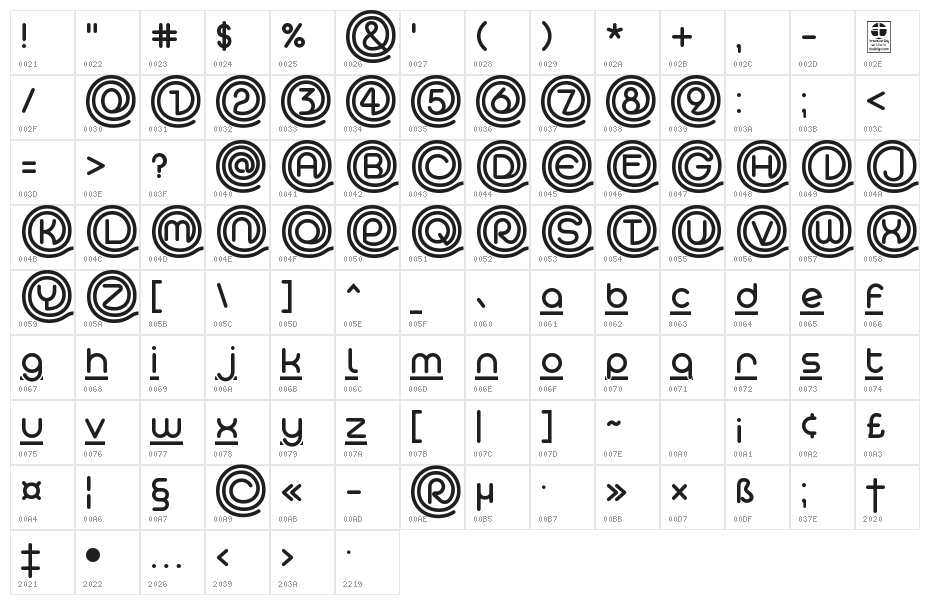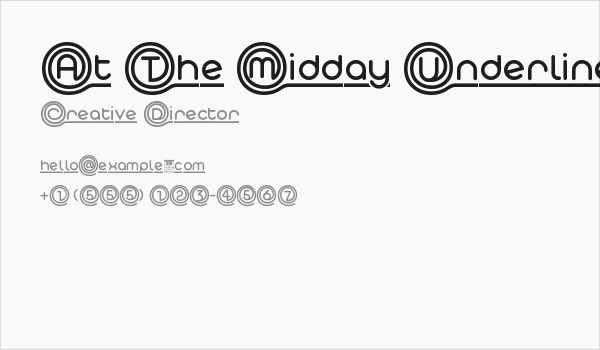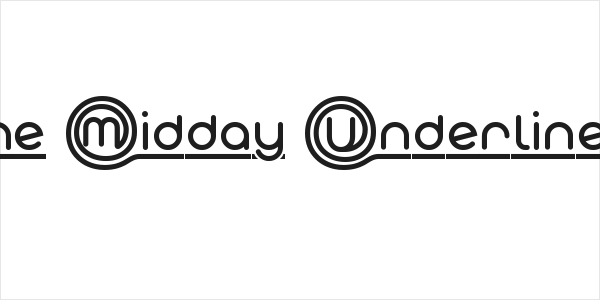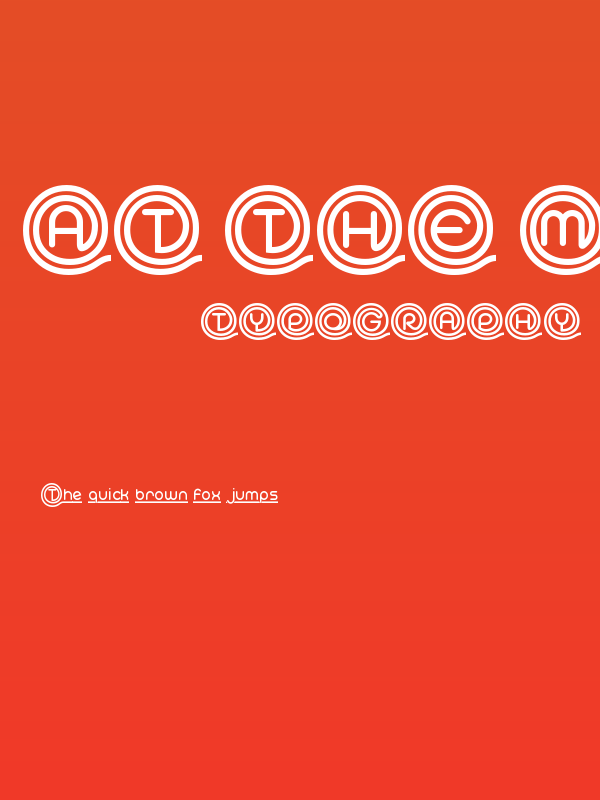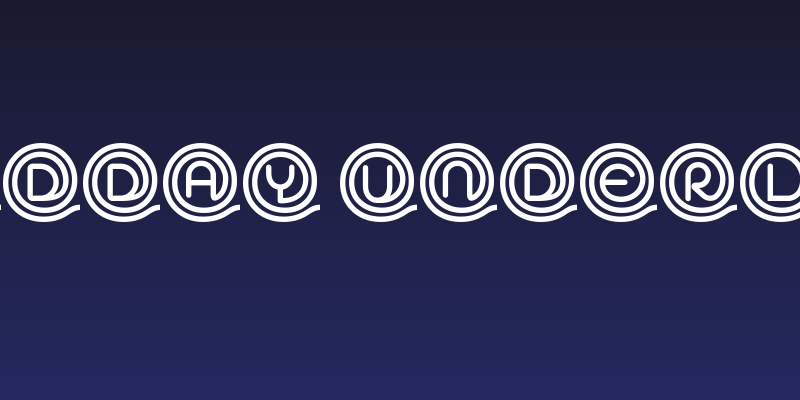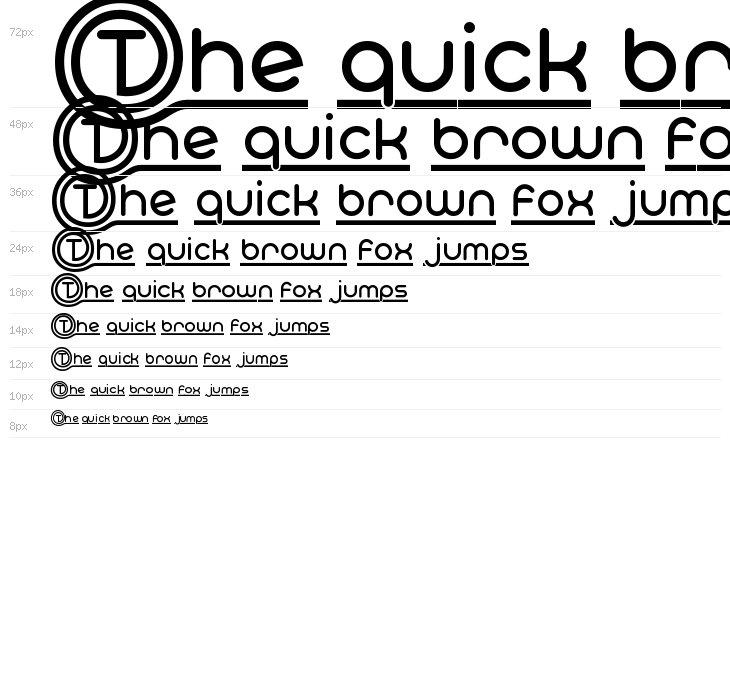
At The Midday Underline Demo Font
At The Midday Underline Demo Description
This font features a unique and modern design with a distinct double-line style that encircles each character, creating a bold and eye-catching appearance. The uppercase letters are enclosed within circular outlines, giving them a decorative and playful look. The lowercase letters are underlined, adding a sense of continuity and flow. The numerals and special characters follow the same double-line theme, ensuring consistency across the font. This font's geometric shapes and clean lines make it suitable for contemporary and creative projects.
| Proposed Projects | Ideal for branding, posters, headlines, and any project requiring a modern and playful aesthetic. |